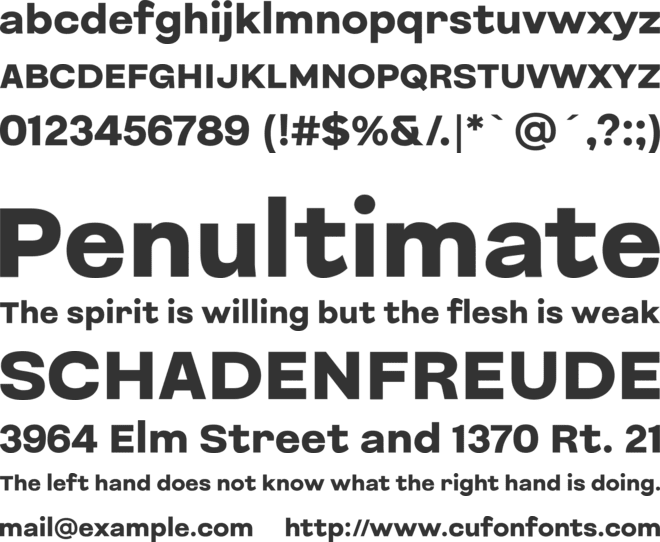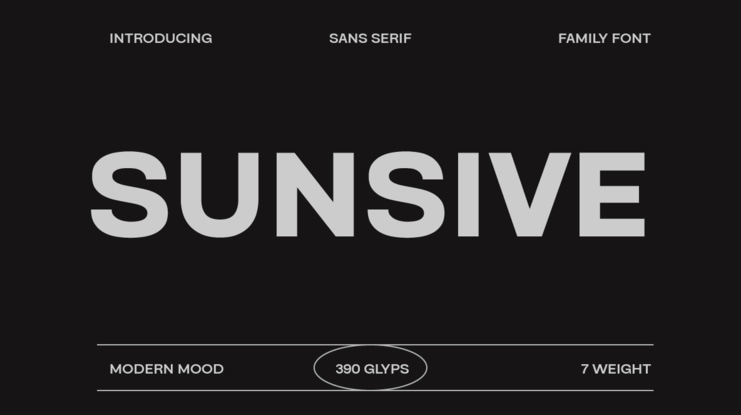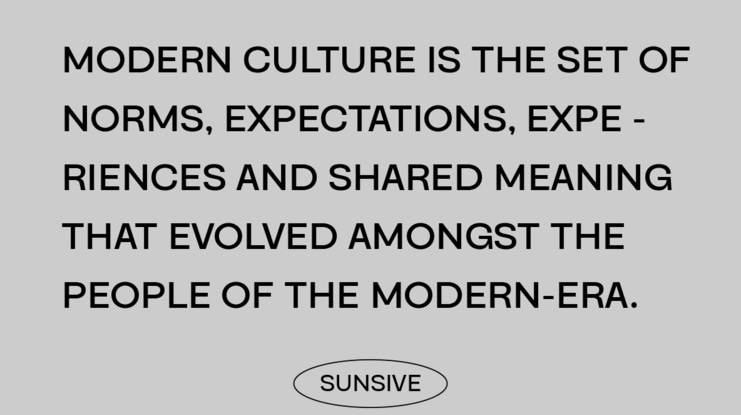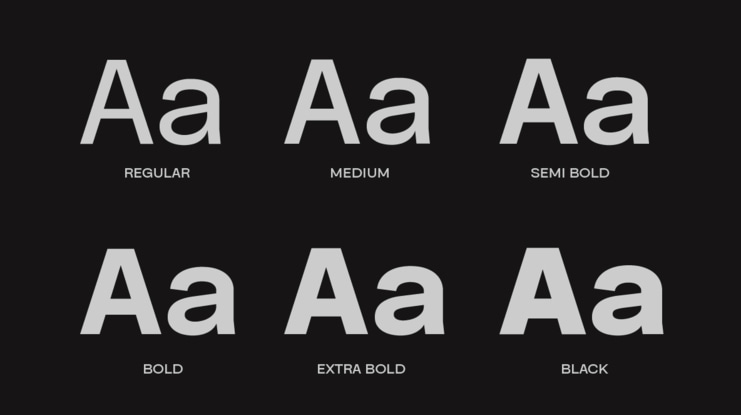
Sunsive Font Family
Sunsive Sans Serif Font family is the perfect choice for clean, minimalist, and professional designs. With a variety of weights and styles, it's suitable for headlines, body, web, print and modern branding. This font provides a bold and elegant look to your graphic projects.
Sunsive Sans Serif Font family provides a variety of variations from Regular to Black, allowing you to customize the appearance of the text according to your needs. From simple Regular to powerful Black, each weight provides flexibility in designing text with a professional, modern touch.